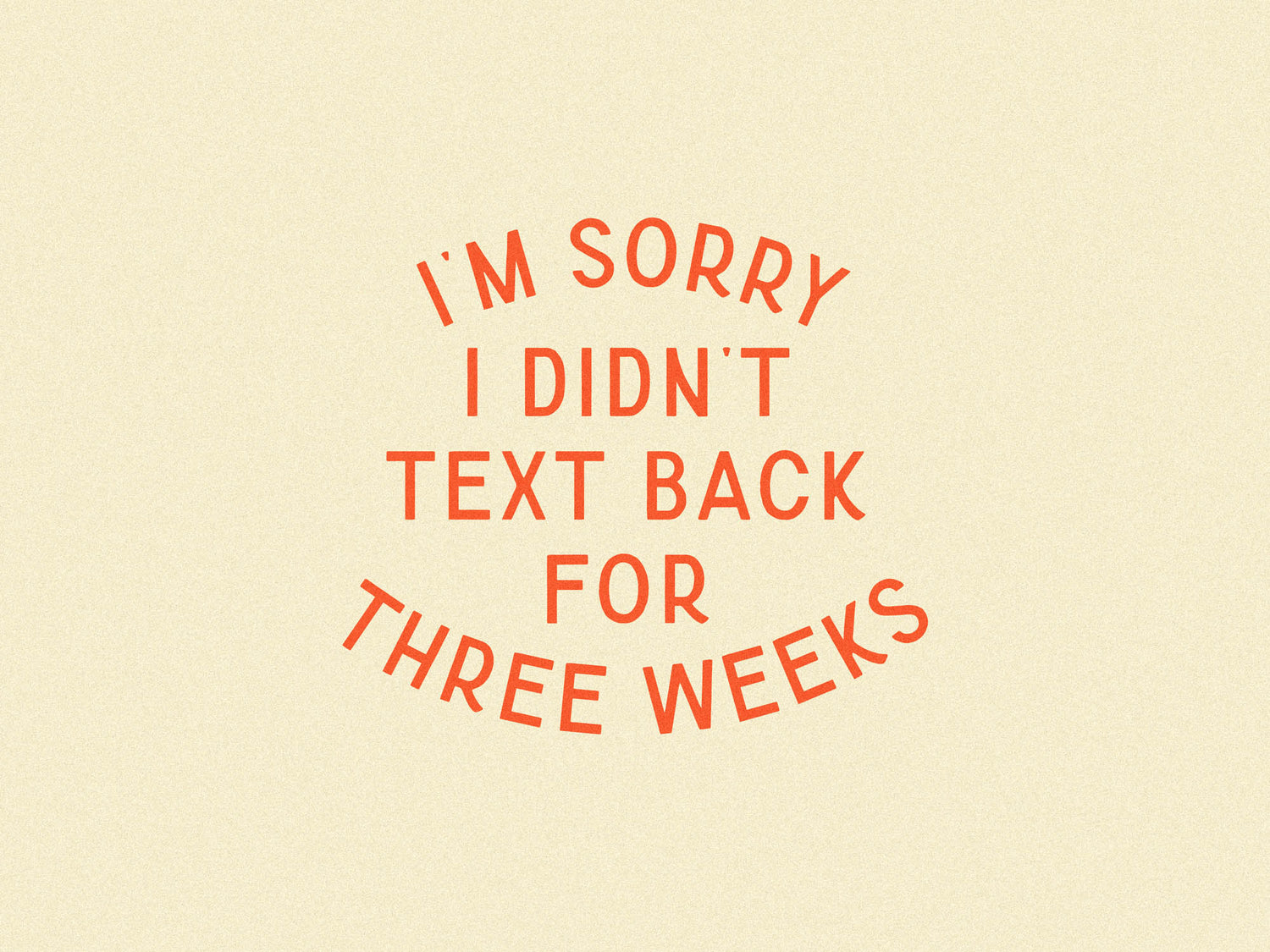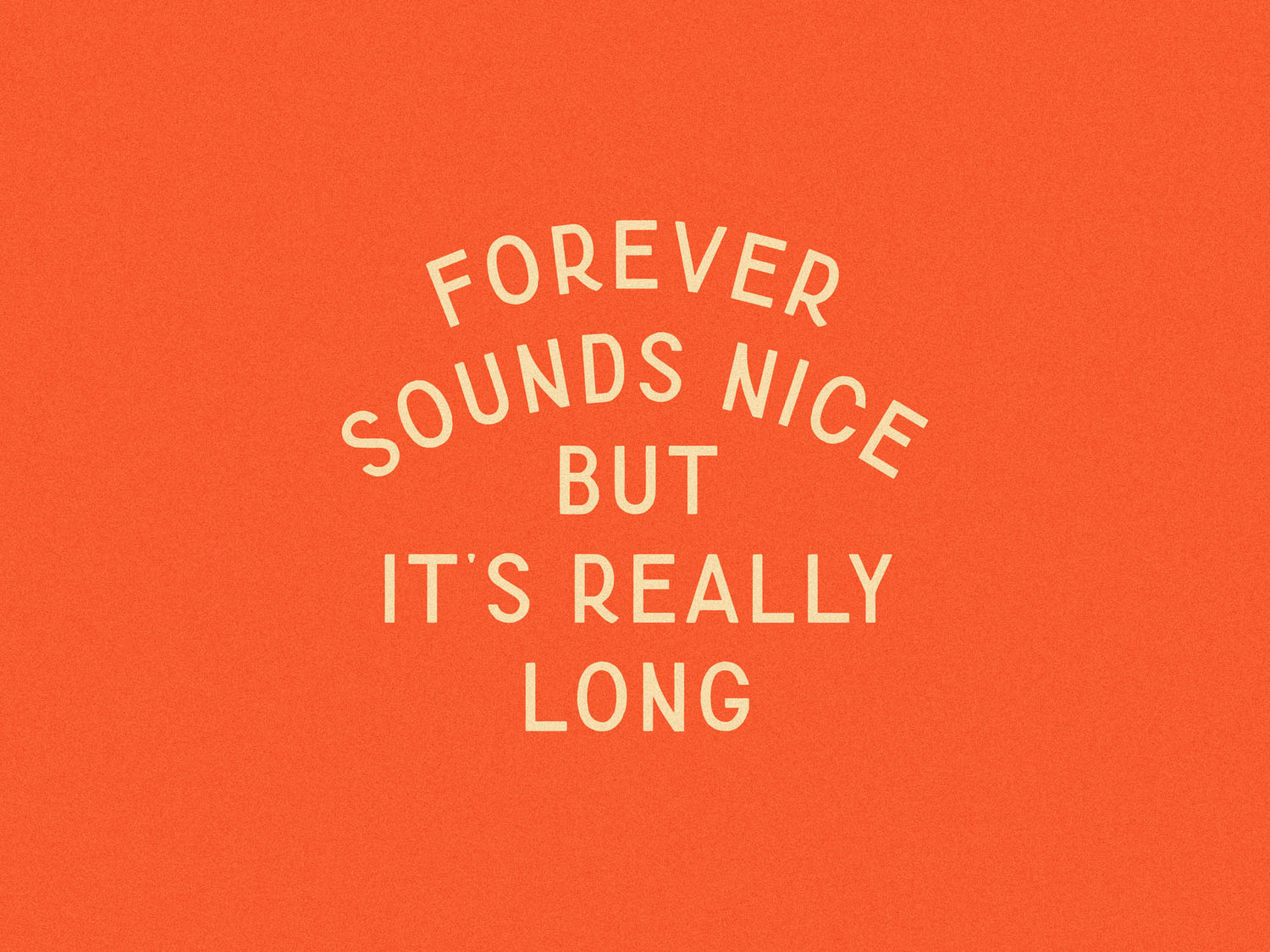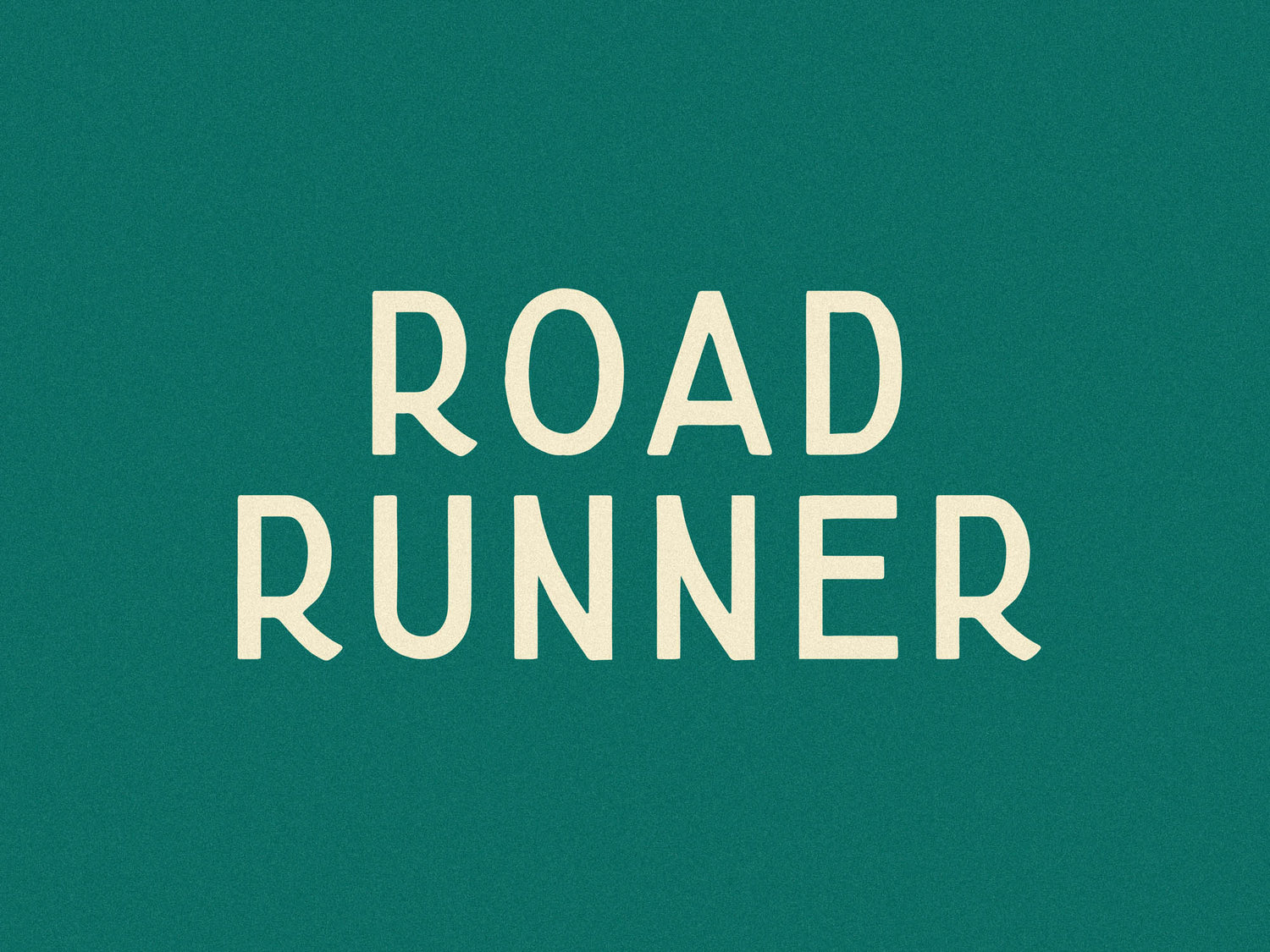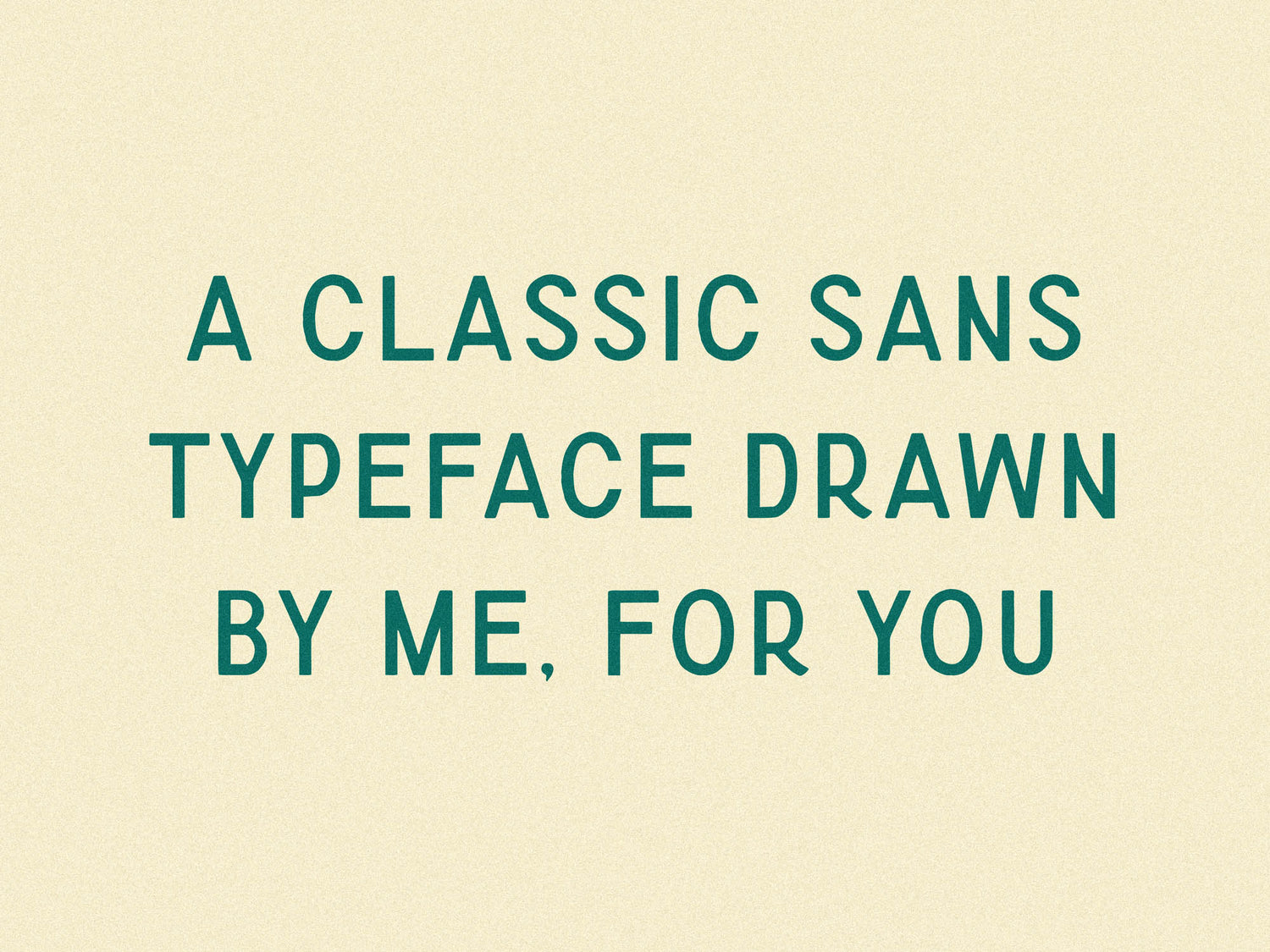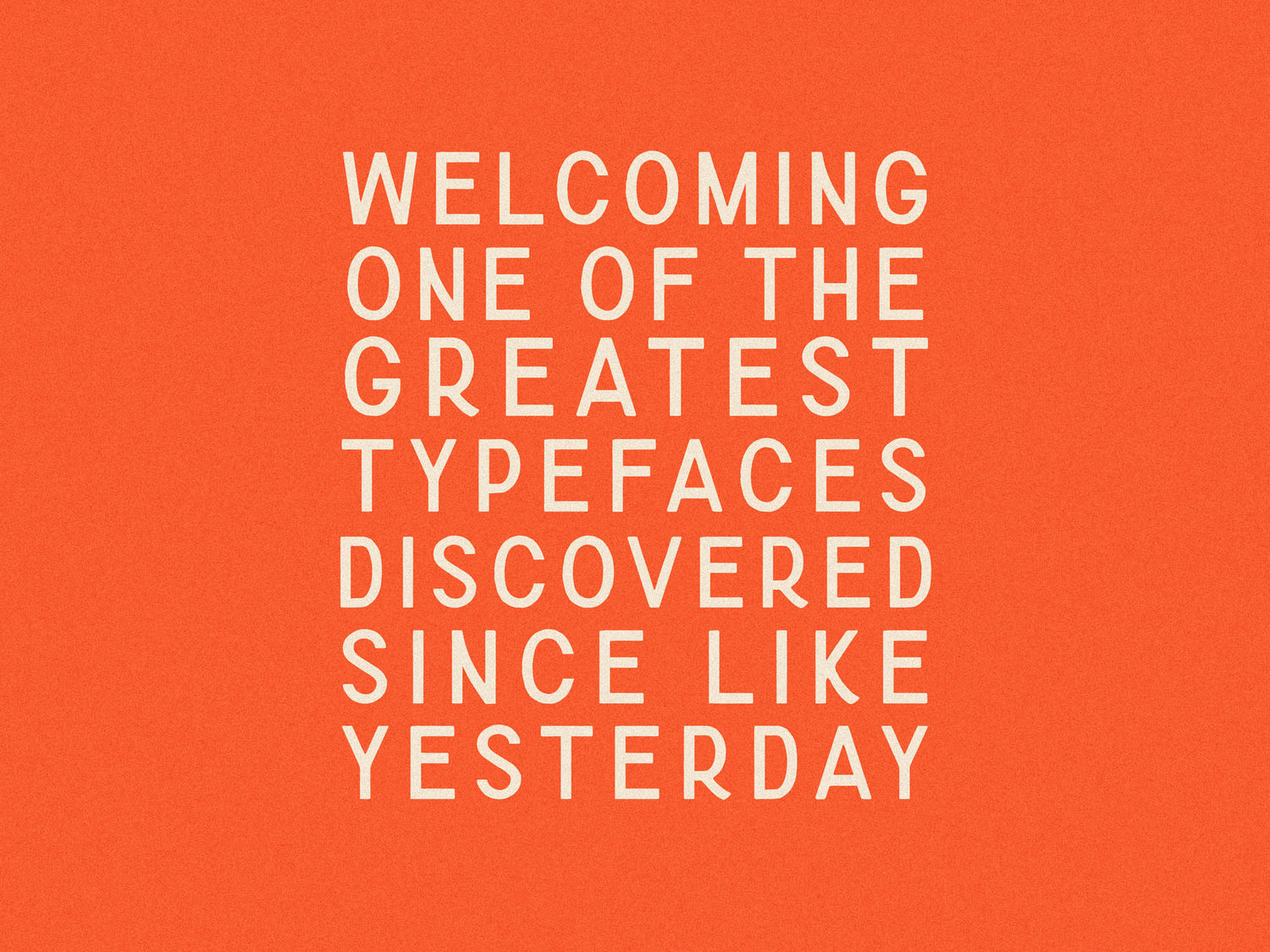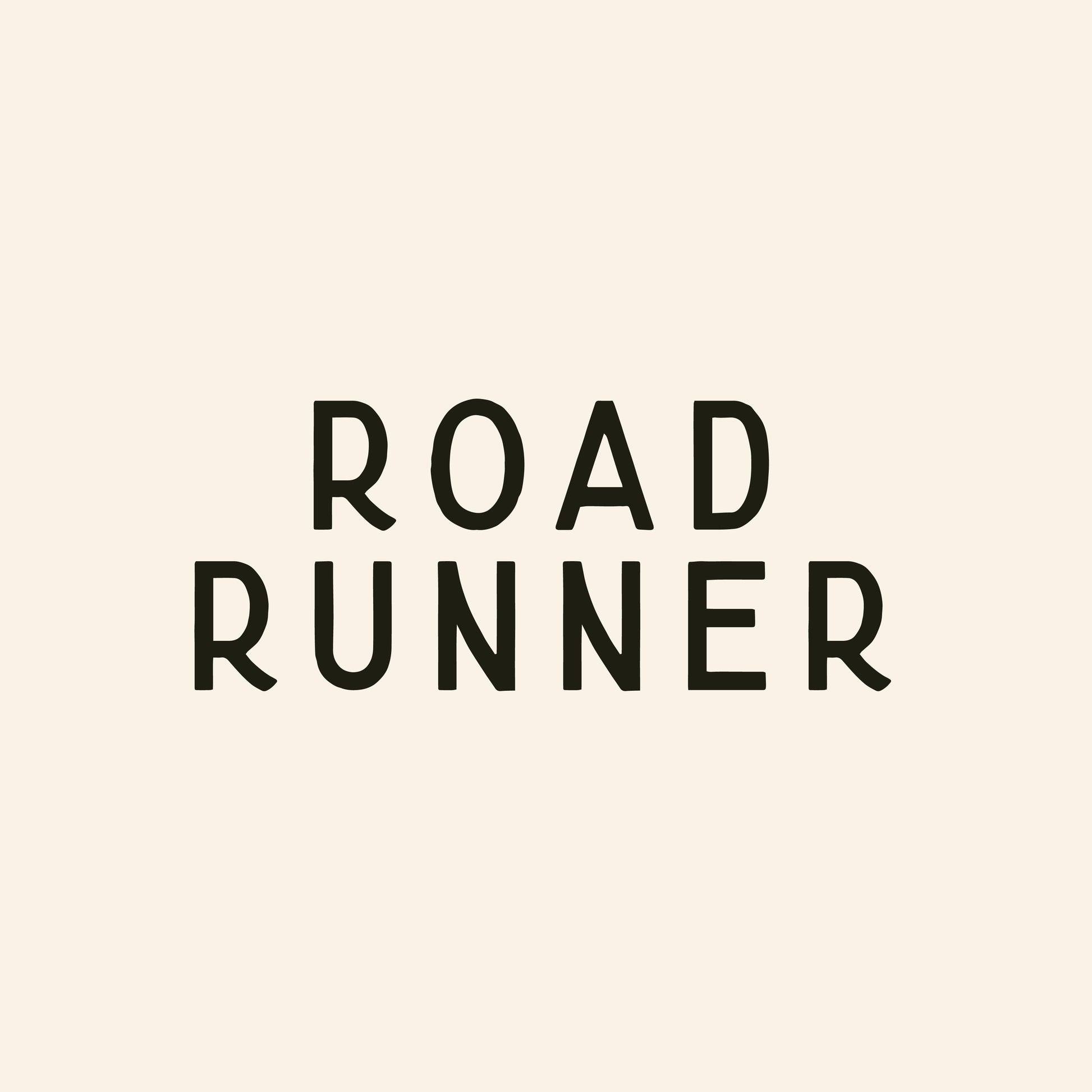
Road Runner
One of the best fonts to hit the internet since… at least yesterday.
Road Runner is a refined sans with a slightly retro edge. It’s clean, dependable, and works harder than it should — especially when your color palette is doing you dirty. Still one of the most popular fonts in the shop for good reason.